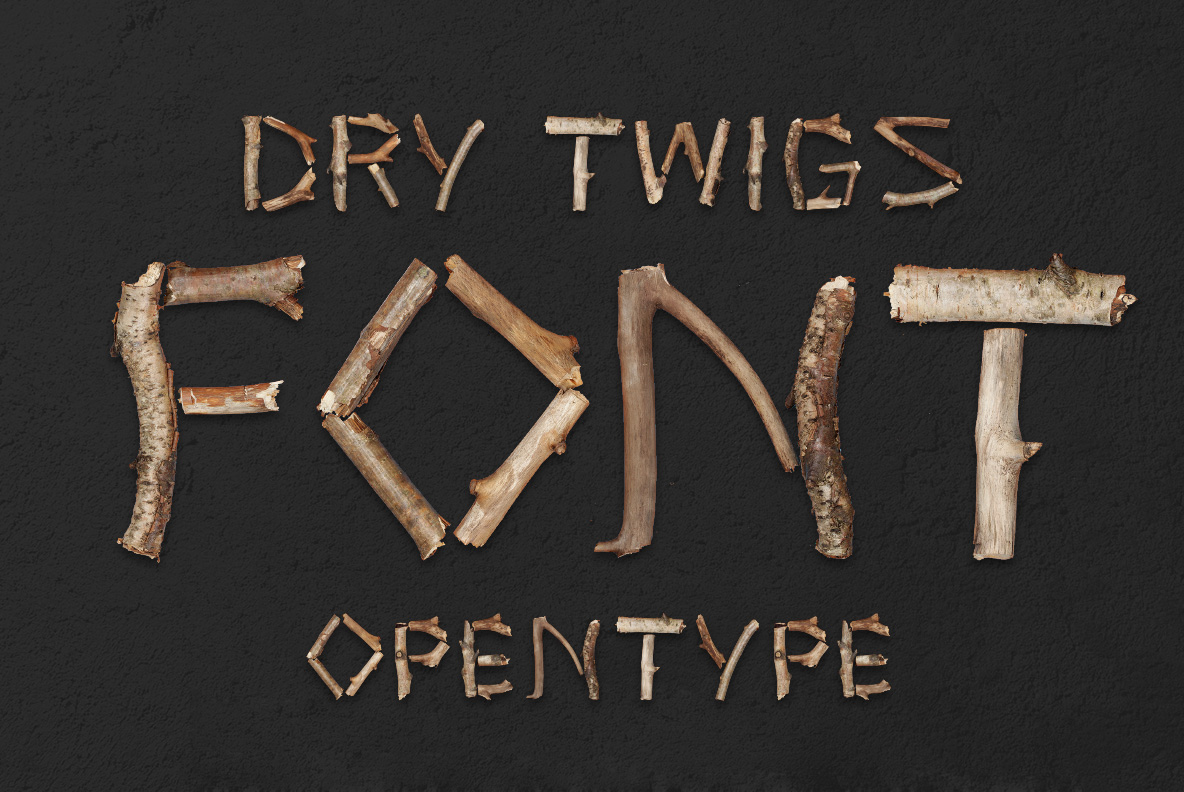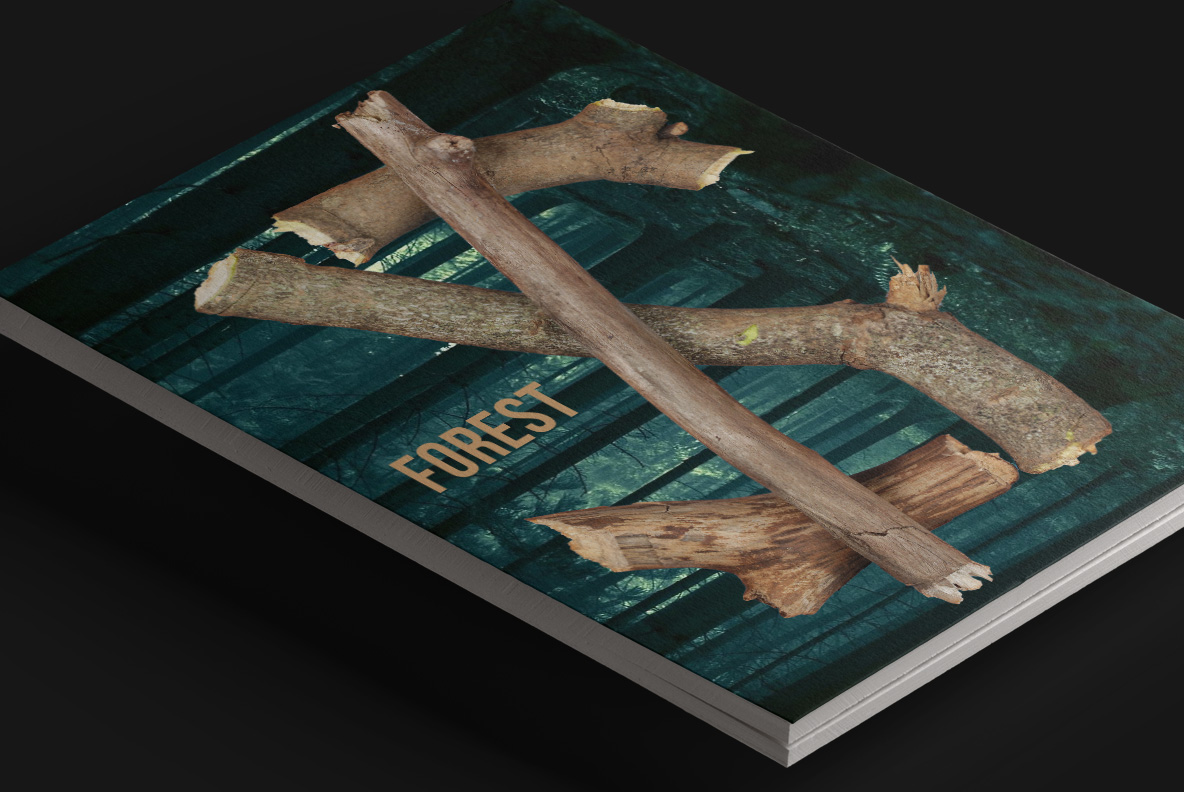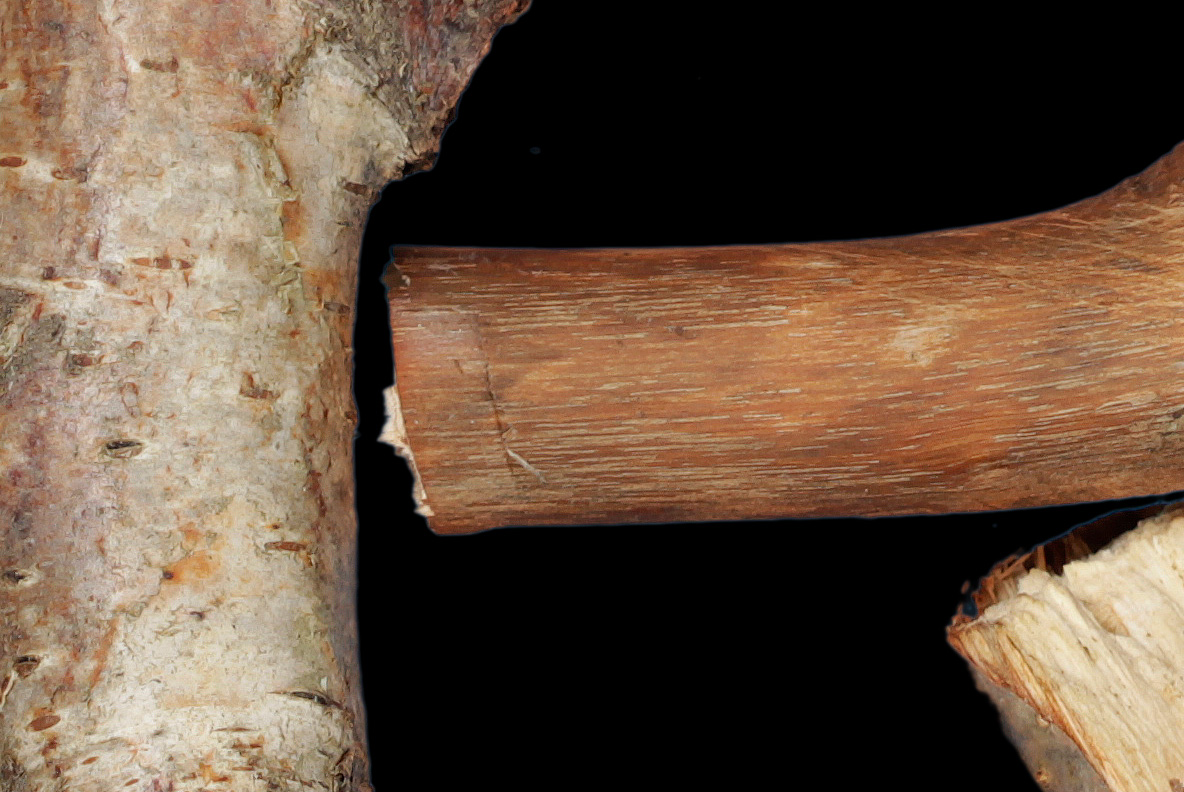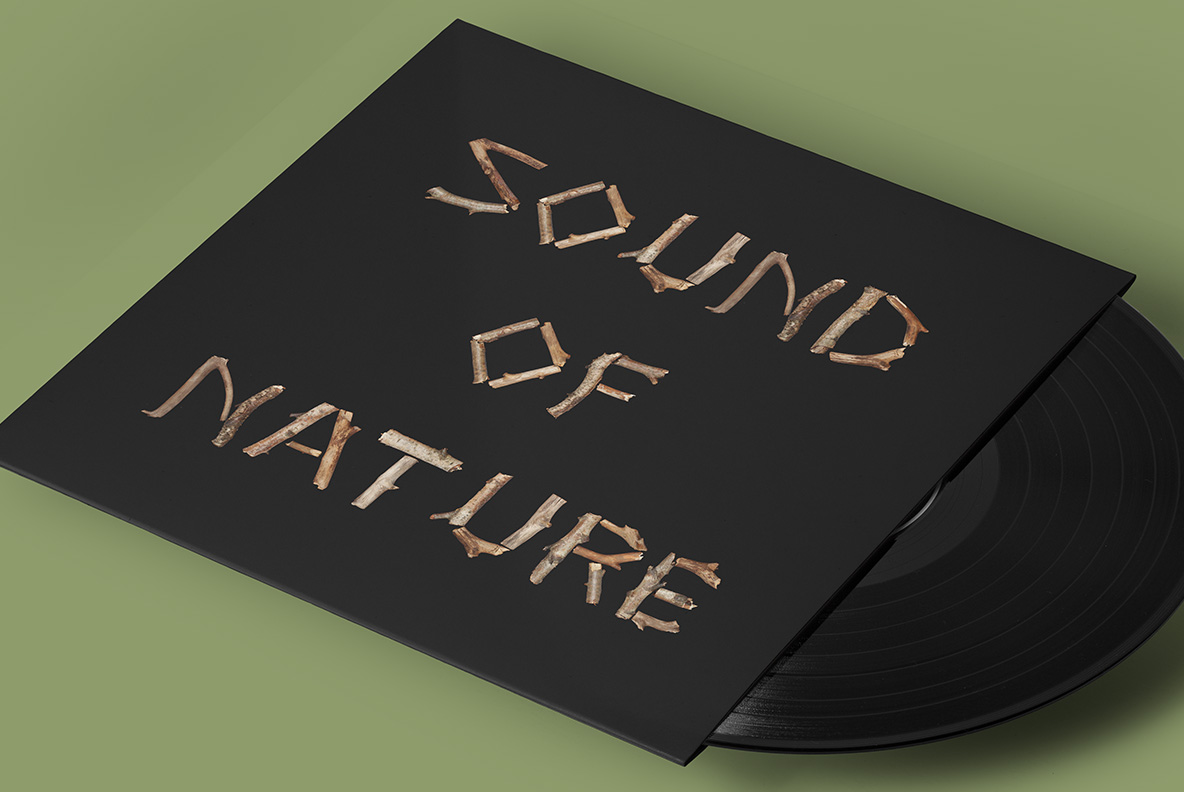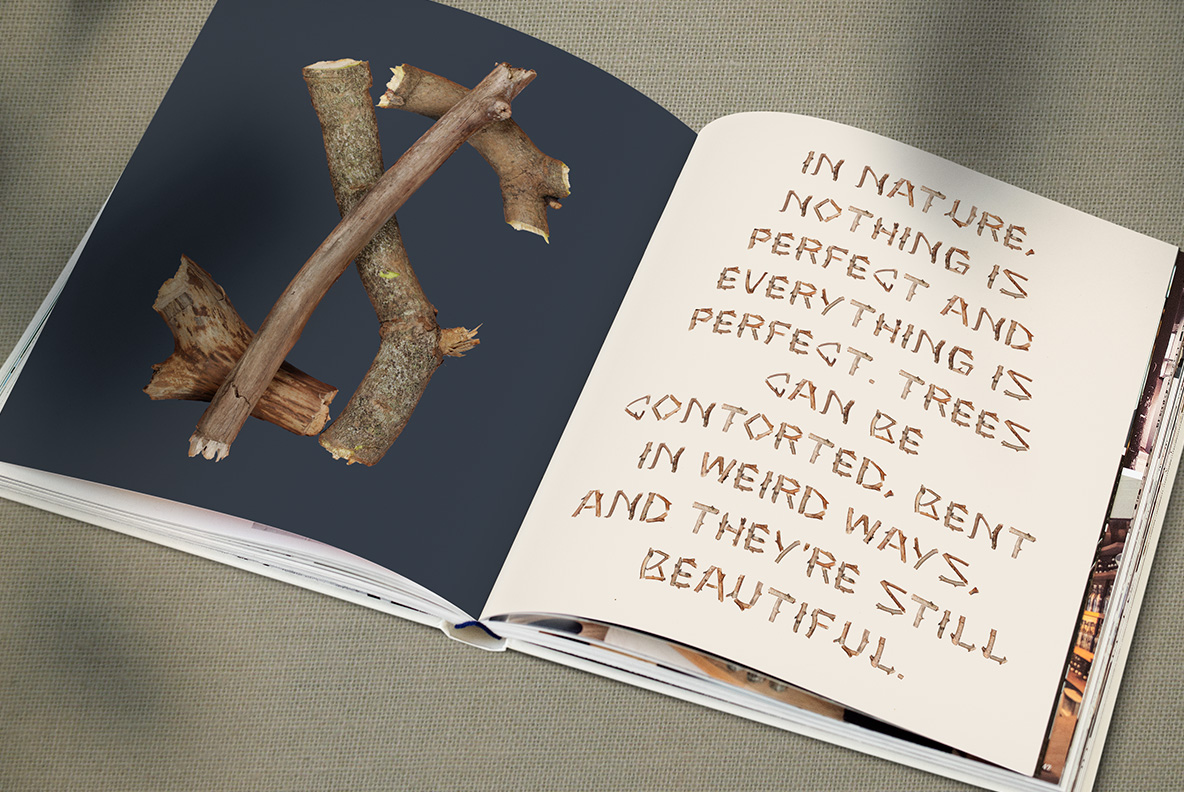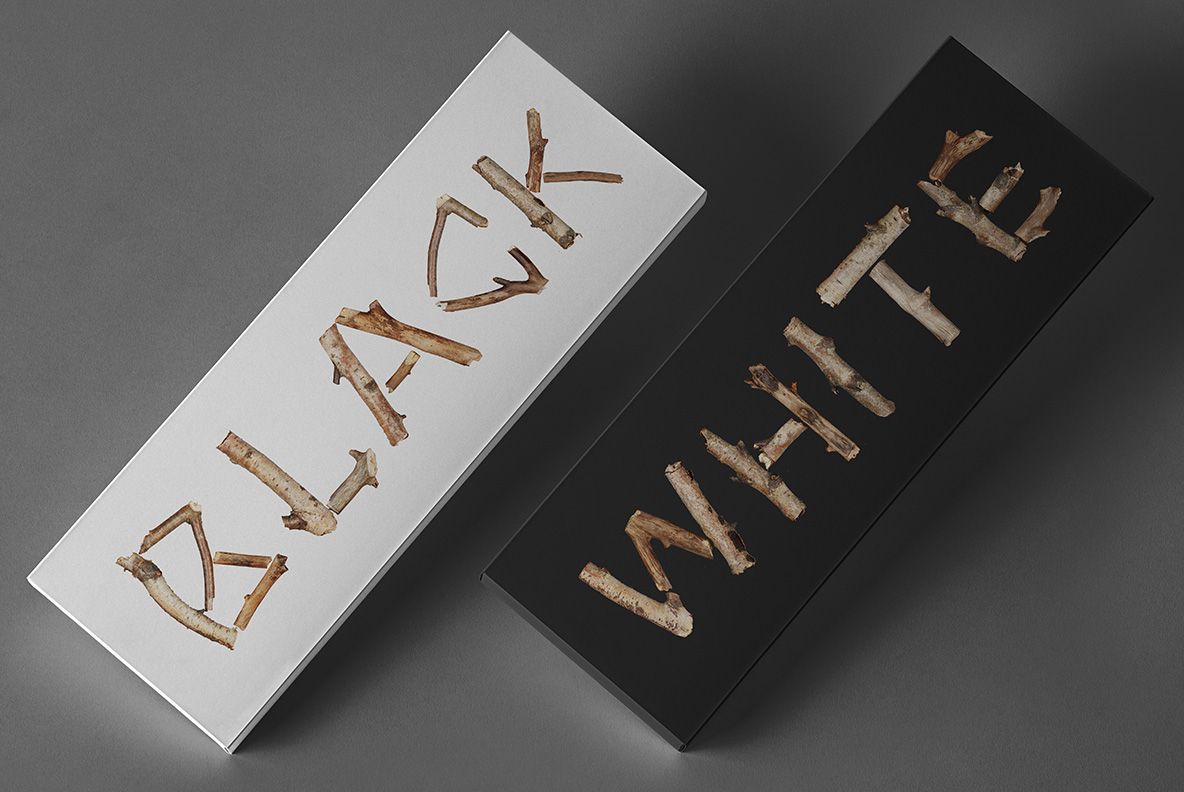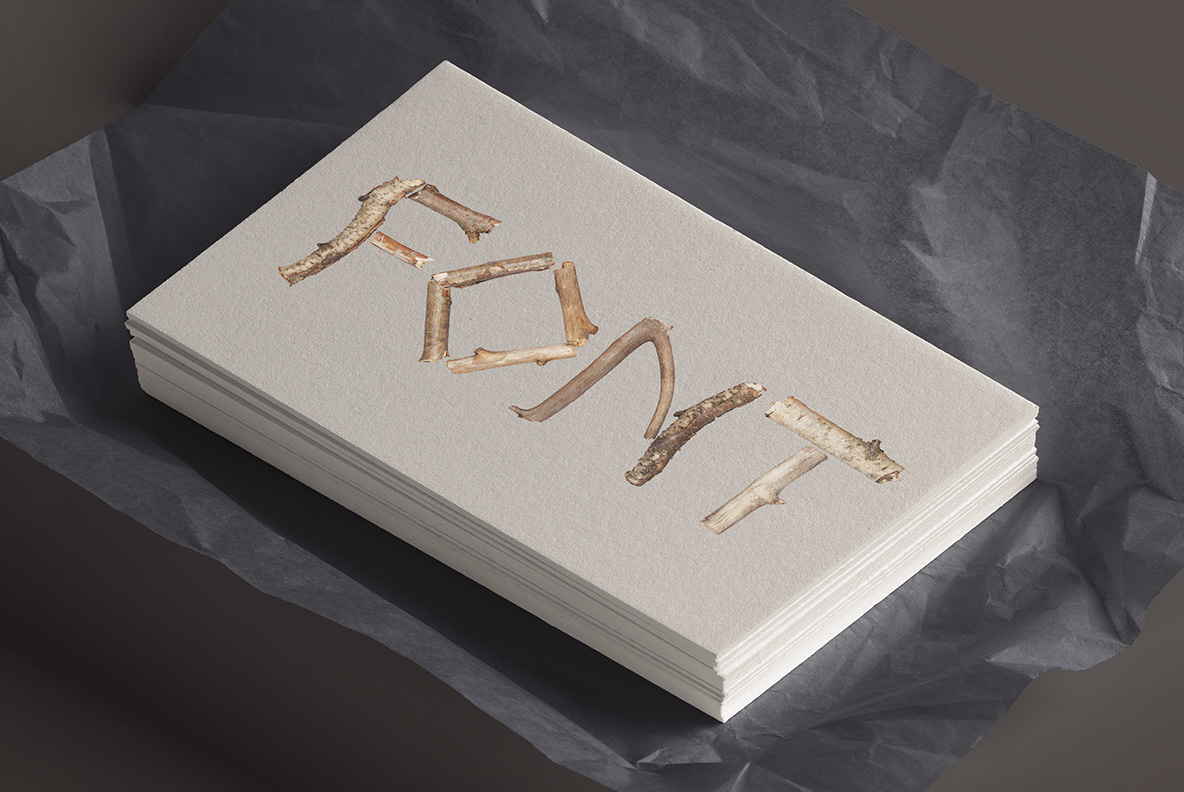
A font that captures the essence of nature’s rugged beauty, the Dry Twigs Font evokes the intricate patterns and textures of fallen branches and weathered wood. Perfect for projects that demand a touch of the outdoors, this font adds a unique, hand-crafted aesthetic that brings your words to life with a natural, artisanal touch. Embrace the simplicity and elegance of the wild with Dry Twigs Font, where typography meets the forest floor.
Alright, imagine this: the Dry Twigs Font. It’s not your everyday, run-of-the-mill typeface. No, this is the kind of typography that makes you question whether you’re designing a poster or planning a stroll in the forest. Every letter looks like it was painstakingly assembled from twigs, like a woodland creature with a flair for design decided to try its hand at calligraphy.
Let’s talk about the design. It’s not just a font, it’s an experience. The letters have this wooden texture that screams, “I was once part of a mighty oak!” or perhaps, “I fell from a tree and was given a new lease on life!” Each character has this unique, organic feel. It’s like the alphabet decided to go camping and never came back. You might think this is just for nature enthusiasts, but it’s actually a high-definition OpenType Font. Yeah, that means it only shows up in apps compatible with color bitmap fonts. If you’re using a prehistoric version of Word or something, you’re out of luck.